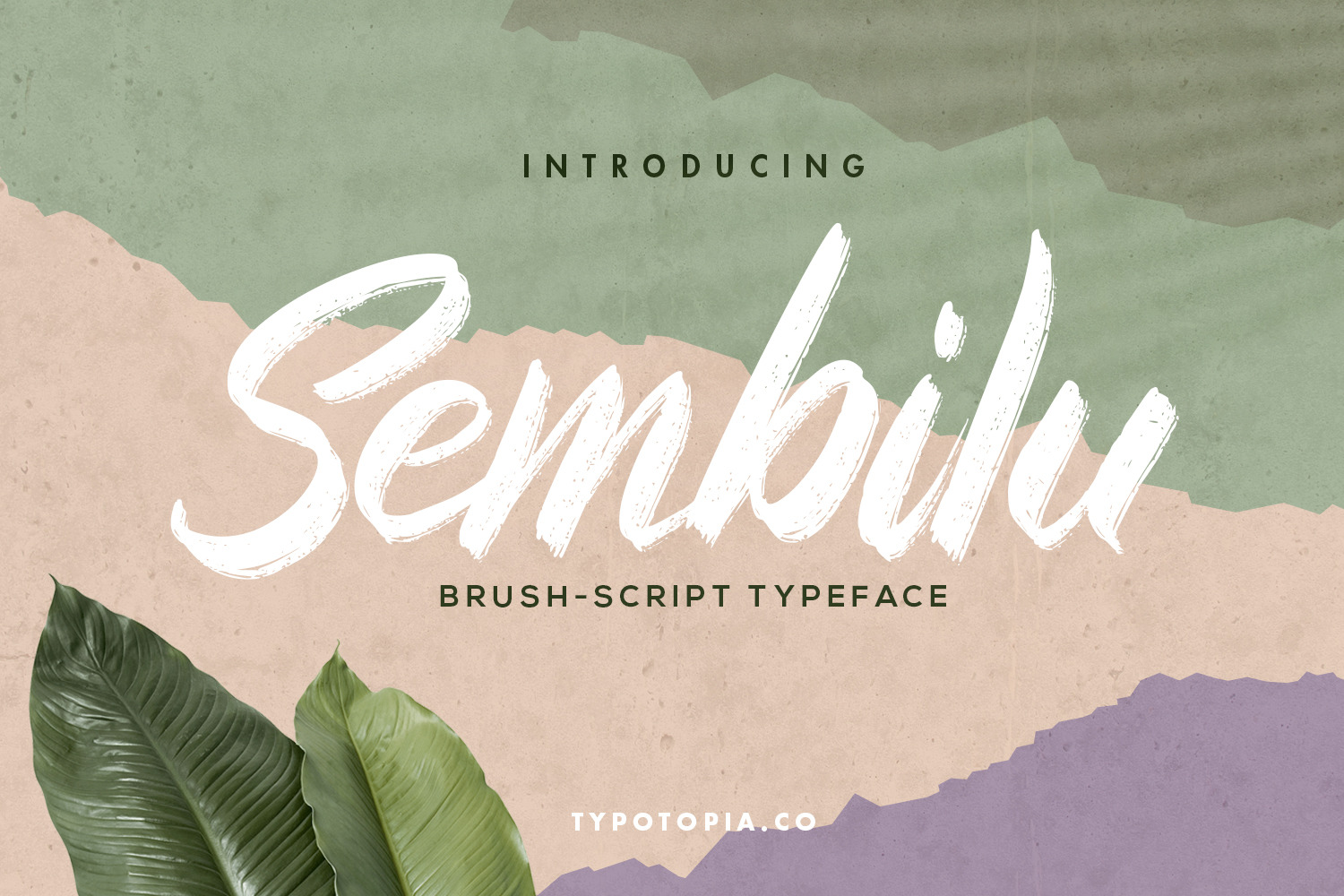
Introducing Sembilu
A Brush-Script Typeface. This type of font perfectly made to be applied especially for logos, Poster, stationery, magazines, menus, books, invitations, greeting cards, packaging, labels, apparel, marketing, business cards, etc. otf, ttf,woff